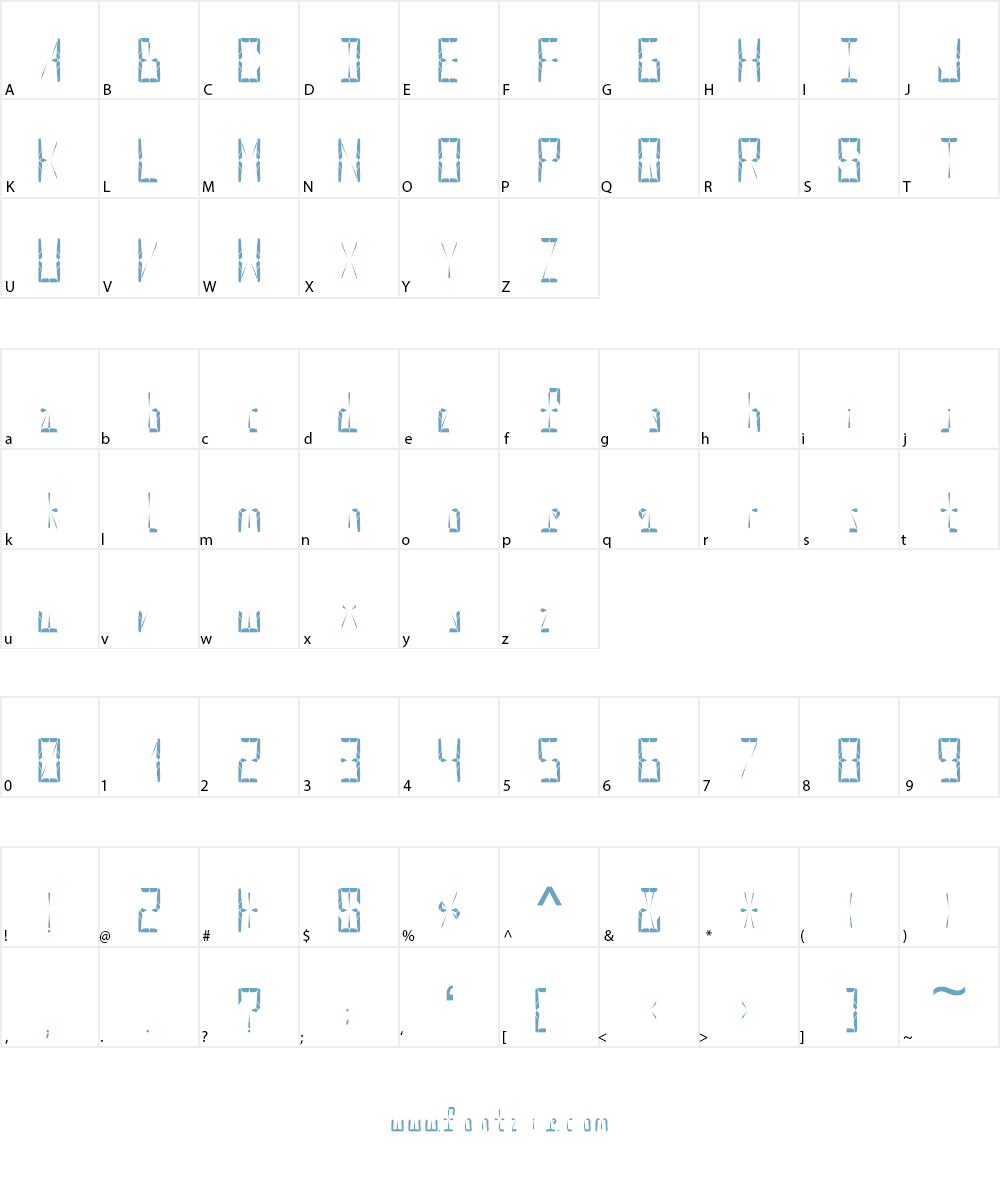
The hypernova display is the densest alphanumeric display possible. It can range from 41 segments, however more segments than this is not really necessary. The side segments have been split for more interesting possibilities. If you want more capabilities than this, look at a dot matrix display.